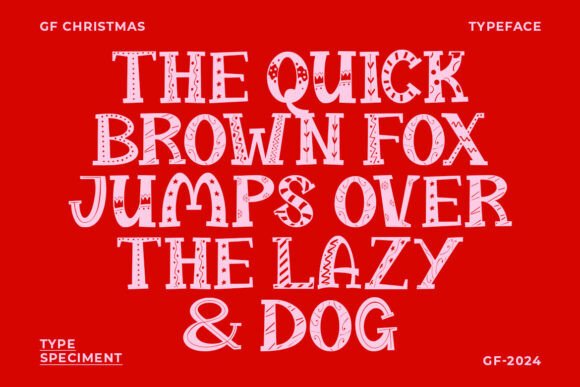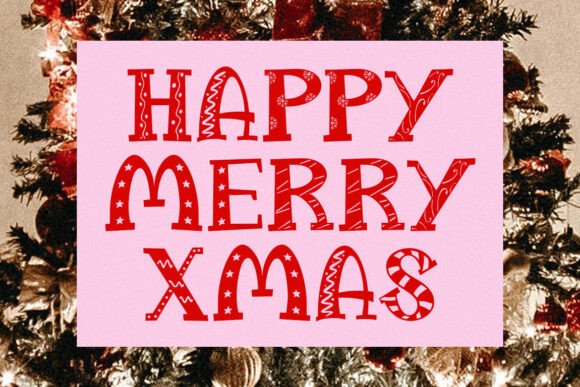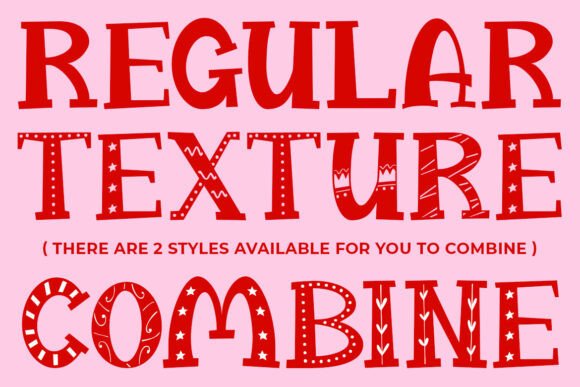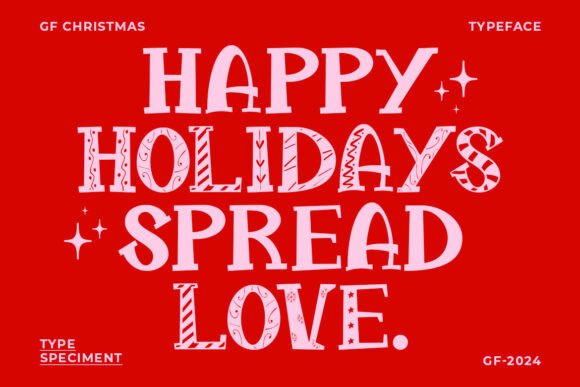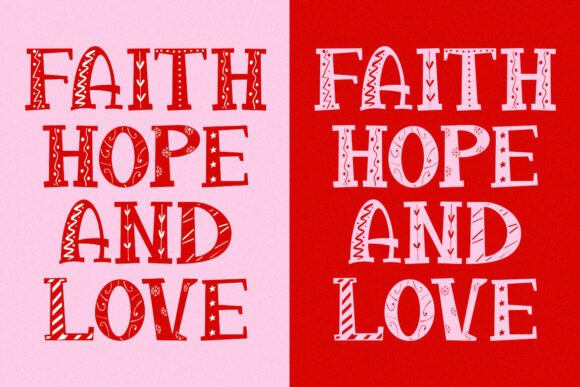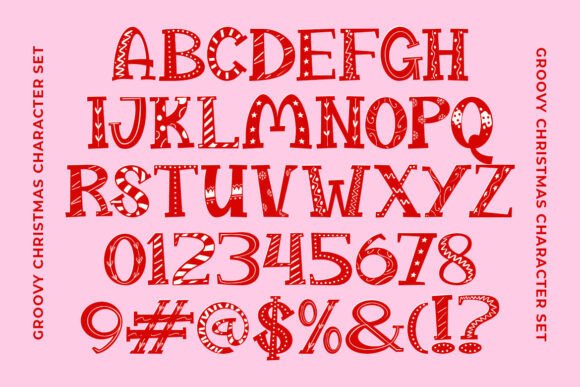
Get into the Holiday Spirit with the Groovy Christmas Font
As the snowflakes start to fall and the twinkling lights begin to adorn your home, the excitement of the holiday season is in the air. For designers, this means a chance to unleash their creativity and bring festive cheer to their projects. It’s the perfect time to break out the decorations, bake some cookies, and get inspired by the magic of Christmas.
That’s where the Groovy Christmas Font comes in – a playful display serif font designed to add a touch of whimsy and joy to your typography. With its two styles, regular and texture, this font is perfect for designers looking to create unique and eye-catching holiday designs. Whether you’re crafting greeting cards, designing festive packaging, or creating digital artwork, the Groovy Christmas Font is sure to bring the spirit of the season to your projects.
Groovy Christmas Font Key Features
- Unique Characteristics: The Groovy Christmas Font features a distinctive, hand-drawn style with intricate details and ornaments, giving it a festive and whimsical feel.
Designer Review: Groovy Christmas Font
I recently had the chance to play around with the Groovy Christmas Font, and here’s my honest take on it.
- The font has a clear, festive vibe that’s perfect for holiday designs.
- The glyphs are well-designed, with a consistent look and feel throughout.
- The font is highly customizable, with a range of sizes and styles to choose from.
- The font’s design may be a bit too over-the-top for some users, particularly those looking for a more understated holiday aesthetic.
- The font could benefit from additional languages and glyphs to make it more versatile.
- Some users may find the font’s default settings too bold or garish.
Overall, I think the Groovy Christmas Font is a great option for those looking for a fun, festive font for their holiday designs. While it may not be the best fit for everyone, it’s definitely worth considering if you’re looking for a bold, eye-catching font to add some holiday cheer to your designs.
The Groovy Christmas Font is perfect for holiday-themed projects, such as:
- Holiday cards and invitations
- Christmas party decorations and signage
- Winter-themed social media posts and ads
Alternatives to Groovy Christmas Font
Great Vibes is a beautiful, handwritten font perfect for creating a festive atmosphere. It’s ideal for headings and titles, especially in Christmas and holiday-themed designs. Compared to Groovy Christmas Font, Great Vibes has a more elegant and refined feel, making it suitable for high-end branding and packaging designs.
Carolyna Pro is a sophisticated, script font with a touch of whimsy. It’s perfect for creating a unique and eye-catching look in Christmas and holiday-themed designs. Compared to Groovy Christmas Font, Carolyna Pro has a more polished and refined feel, making it suitable for luxury branding and advertising designs.
Alex Brush is a elegant, handwritten font with a touch of sophistication. It’s ideal for creating a beautiful and festive atmosphere in Christmas and holiday-themed designs. Compared to Groovy Christmas Font, Alex Brush has a more delicate and refined feel, making it suitable for high-end branding, packaging, and stationery designs.